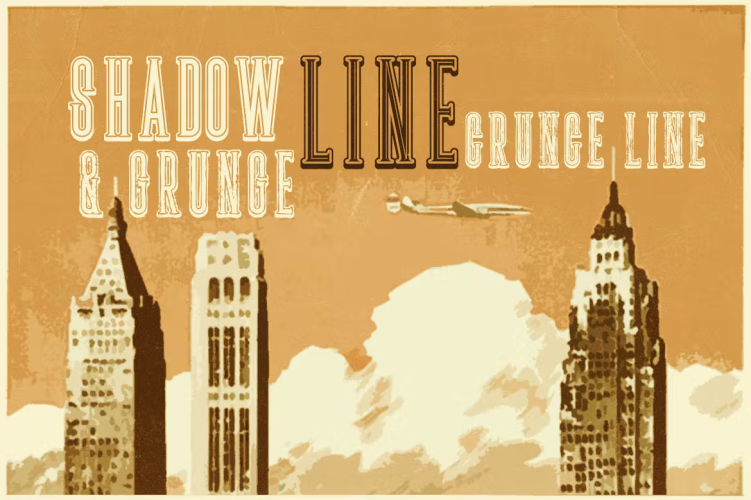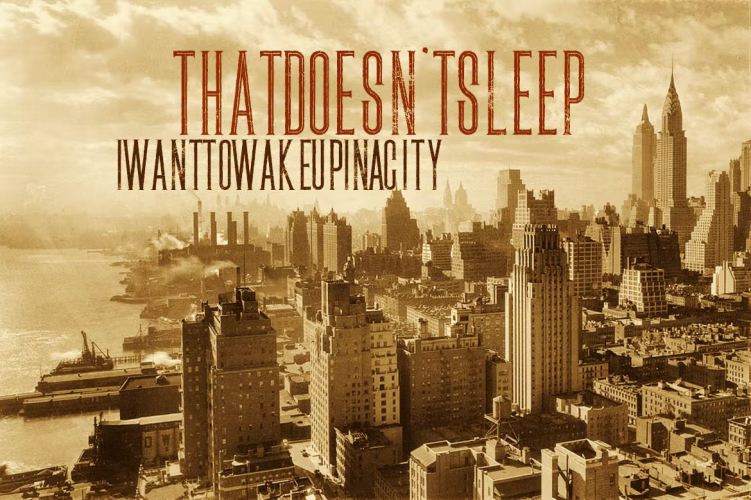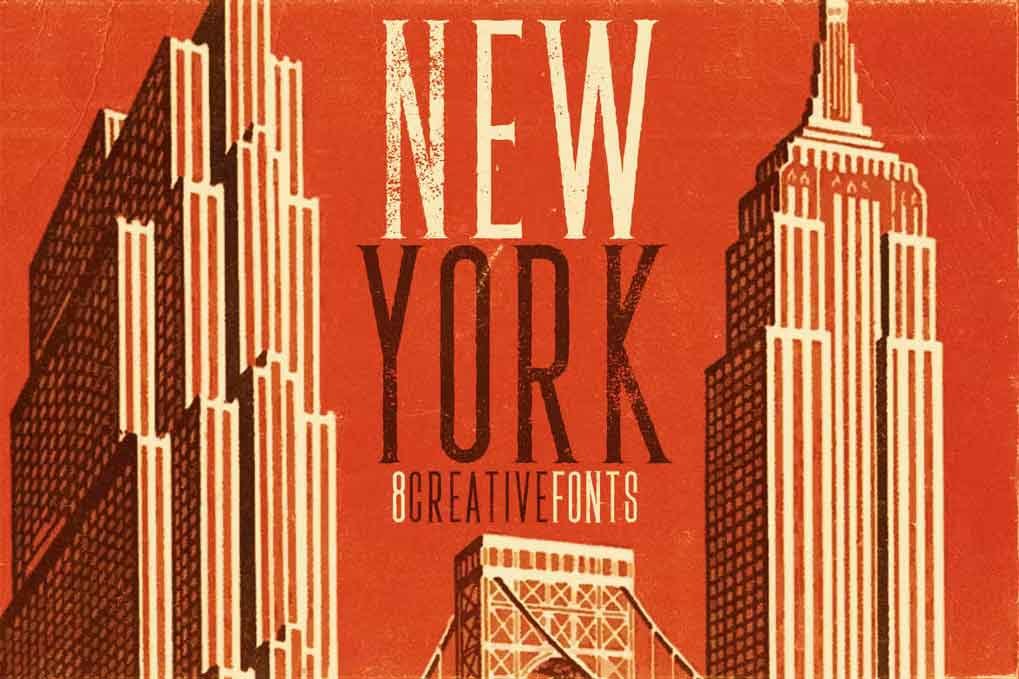
New York Font
Vintage style display serif font for your new projects. Great for your retro/vintage projects! – 8 font files (otf & ttf) – regular& grunge, line & line grunge, shadow &…
Vintage style display serif font for your new projects. Great for your retro/vintage projects!
Where New York Font works best
Reports, white papers and book interiors hold the eye longer when the text face has real serifs; New York Font keeps that rhythm without looking old-fashioned.
Food, spirits and cosmetics brands lean on serif wordmarks to suggest age and care. New York Font gives that signal at wordmark size.
Set New York Font for the body of an award or a diploma and keep the recipient name in a script; the pairing is what makes a document feel official.
What kind of work does New York Font suit?
It sits in the Serif Fonts group and reads as display, retro, serif, serif fonts. That makes it a candidate wherever those qualities help: headings, packaging, social graphics and brand work. Set it at the size you plan to use before deciding.